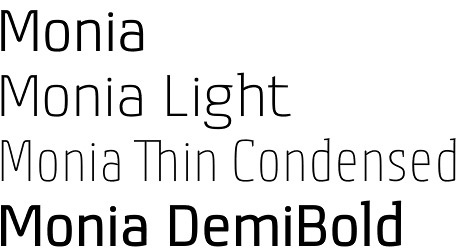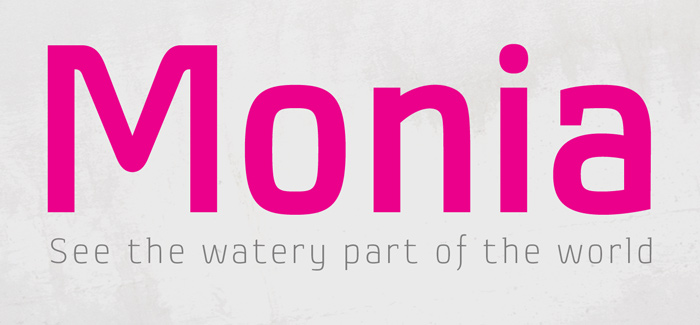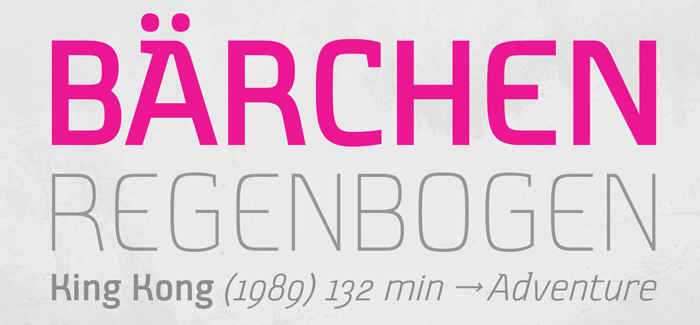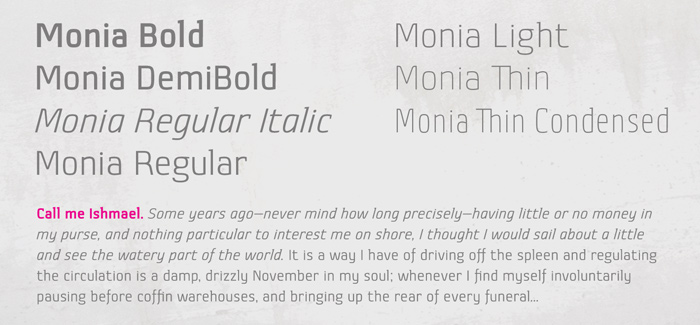
Monia font
Monia font by Johannes Hoffmann is a contemporary sans-serif family designed in 5 weight and additionally supported by Light Condensed version and true Italic font for the Regular weight. Strict geometry of this font is accompanied by a lot of character and identity achieved by blending sharp rectangular shapes with smooth and elegant curves. Add wide open apertures and increased x-height and you’ll get a modern grotesque family with perfect legibility, original style and versatile options for use – posters, headlines, body text as well as packaging, corporate identity and annual reports.
Fully open type compatible, Monia will be your best friend if you want to have contemporary yet classic easy-to-read typography.